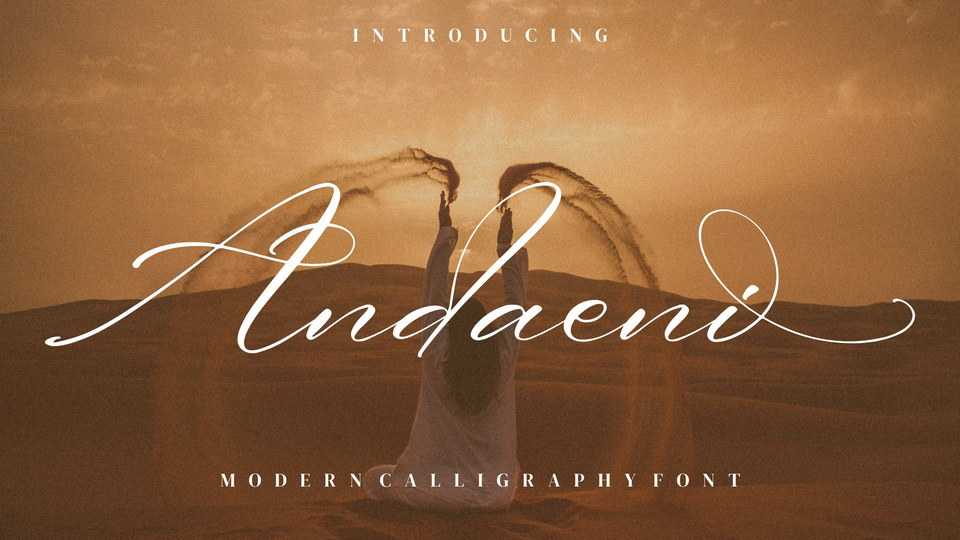
Download Andaeni font, a premium calligraphy typeface with an elegant flow. Andaeni is suitable for any projects such as: logos, branding, quotes, t-shirts, book covers, greeting cards, special events and all your other luxury projects.